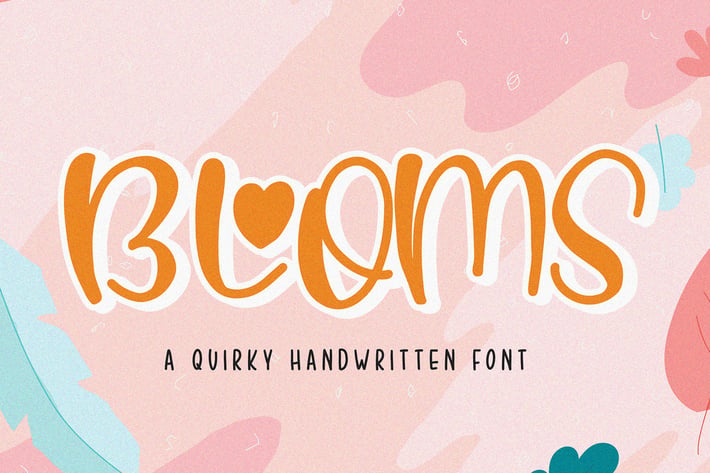
Blooms - Handwritten Font
Blooms with Natural Handwritten Artistic Style,
this is perfect for Crafting, Branding, Logos, packaging, masterheads and more.